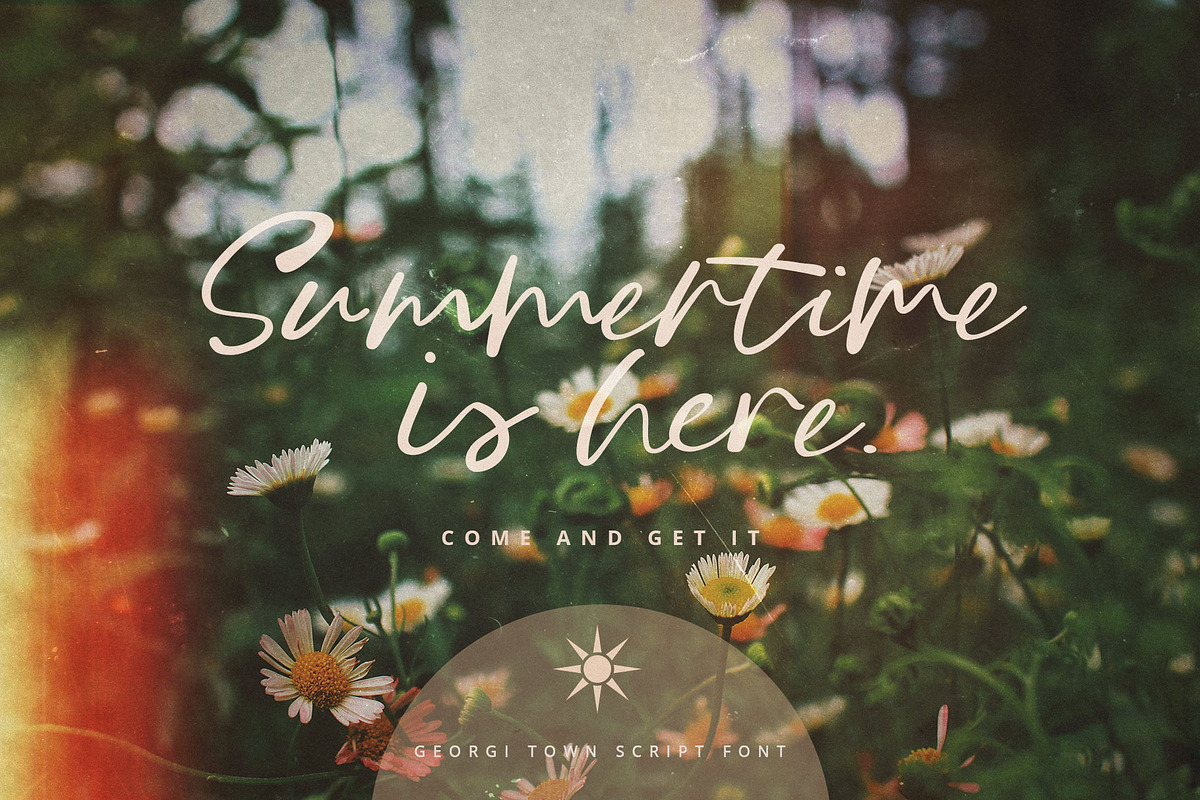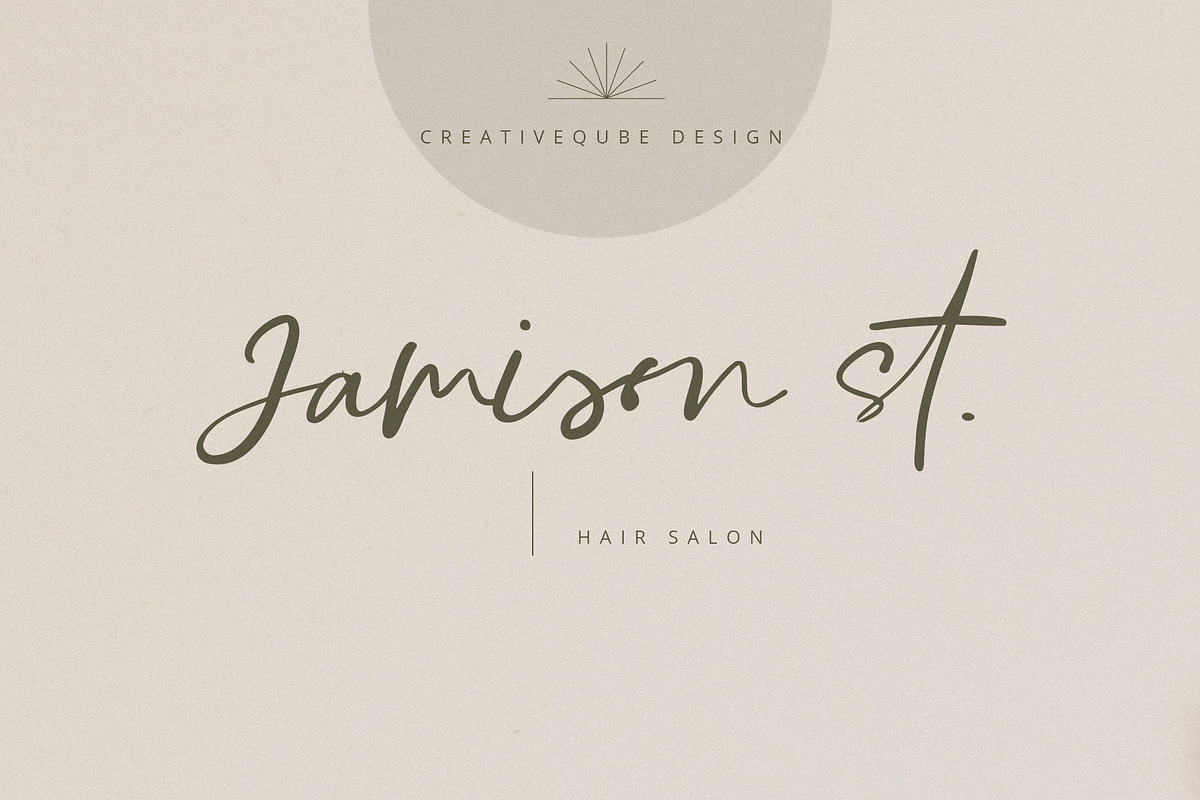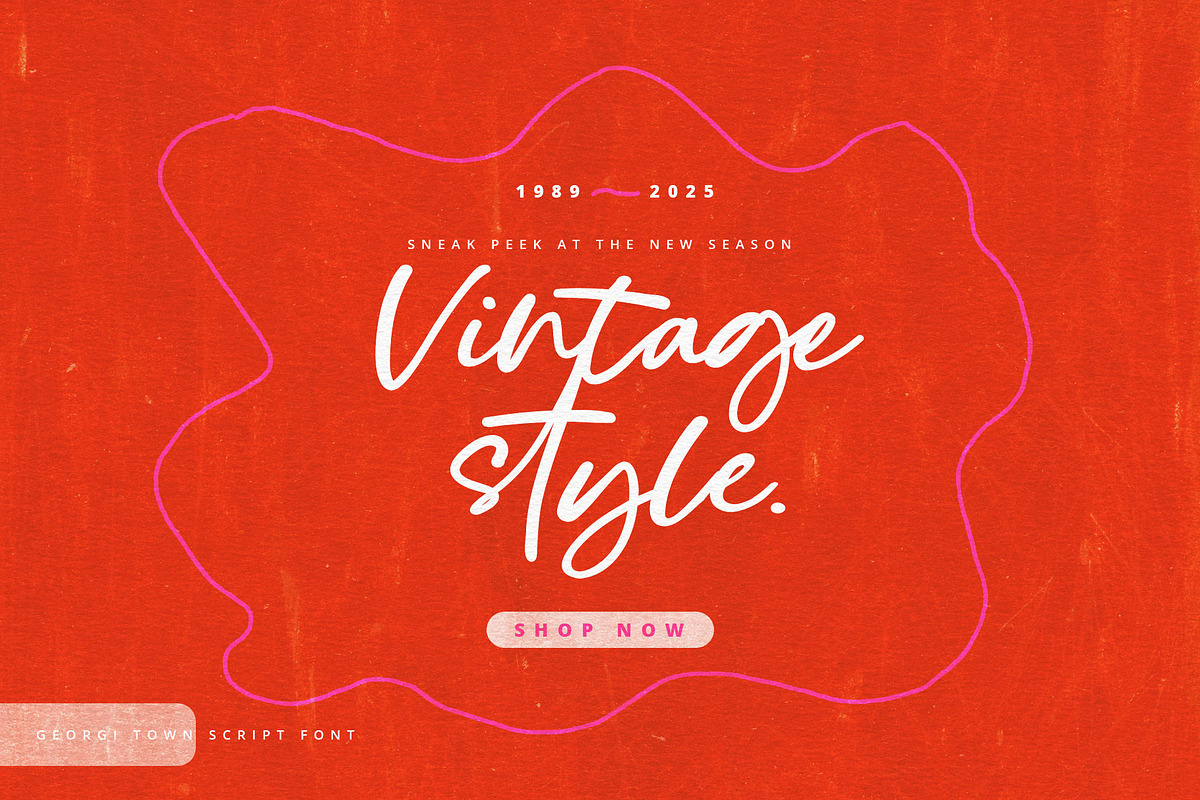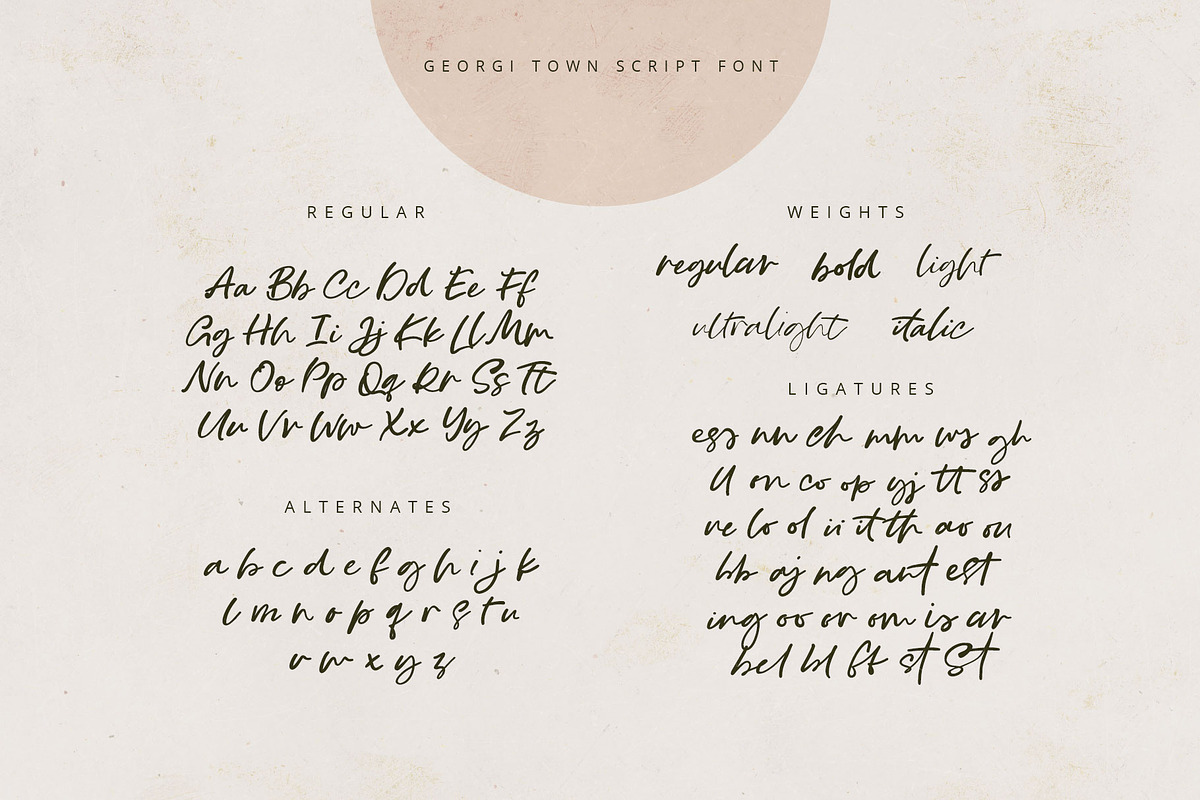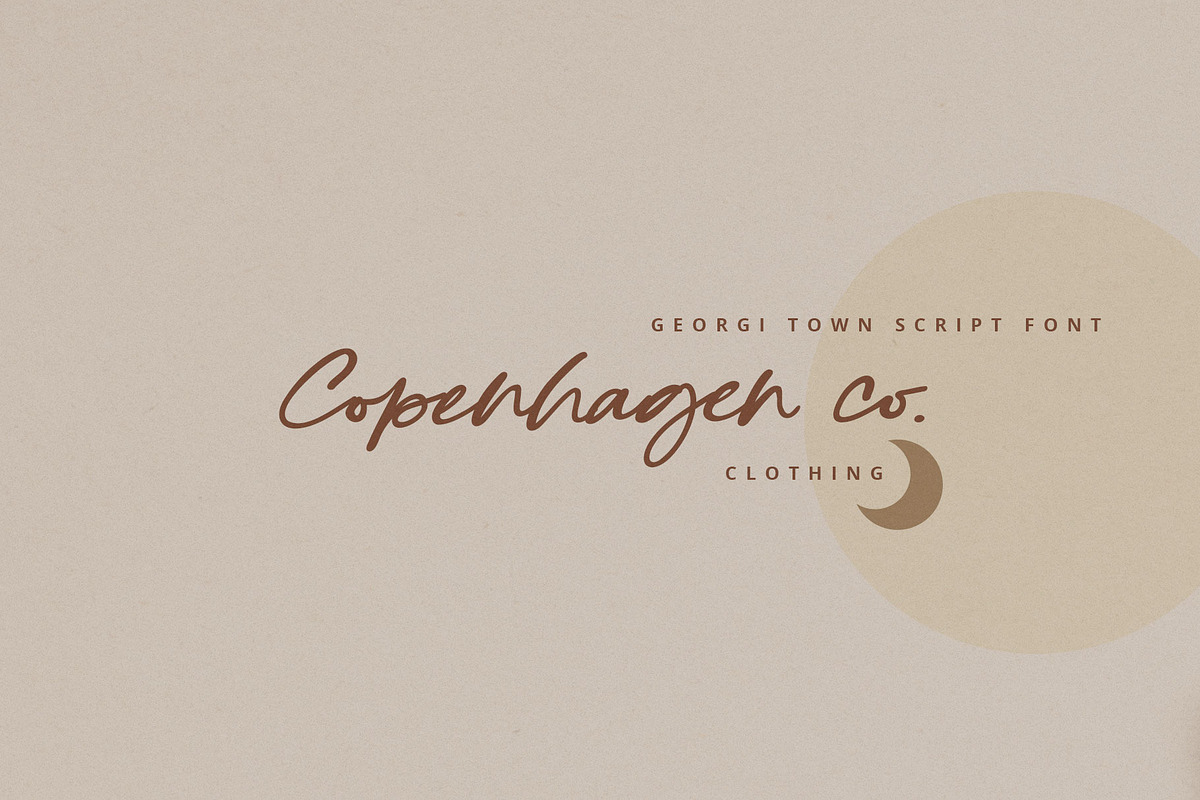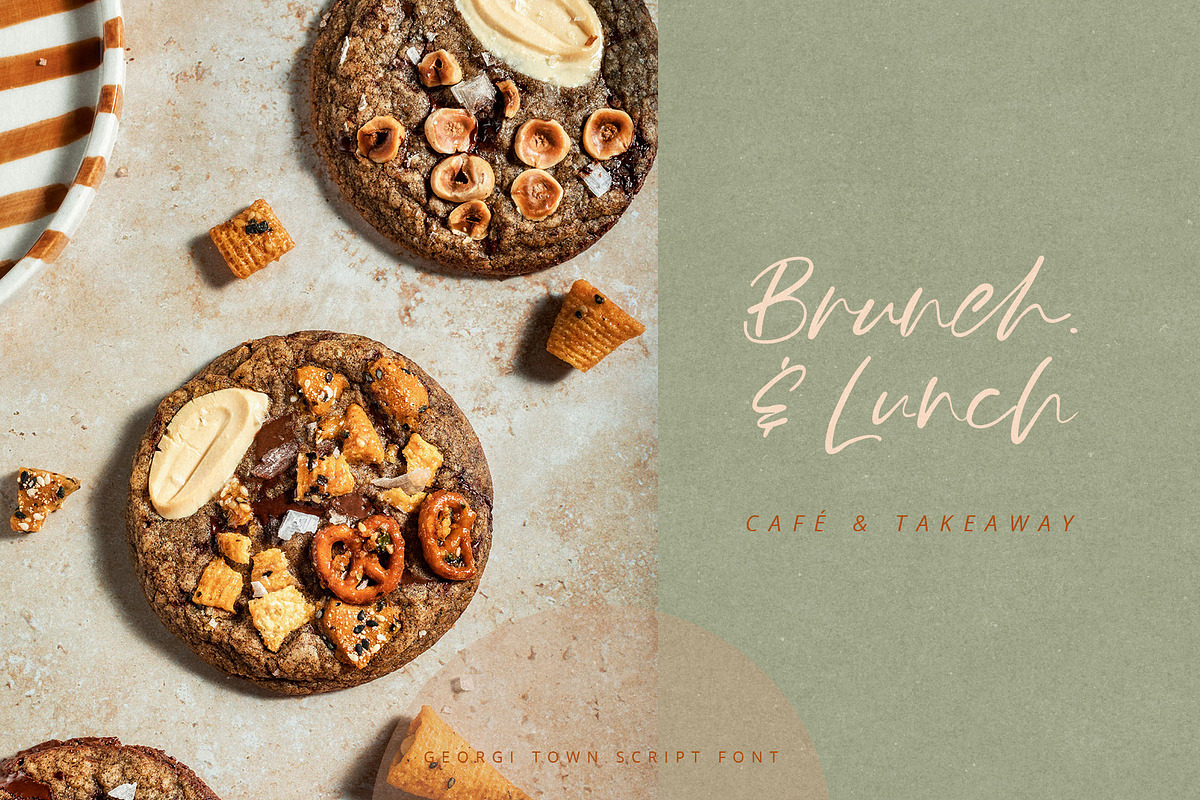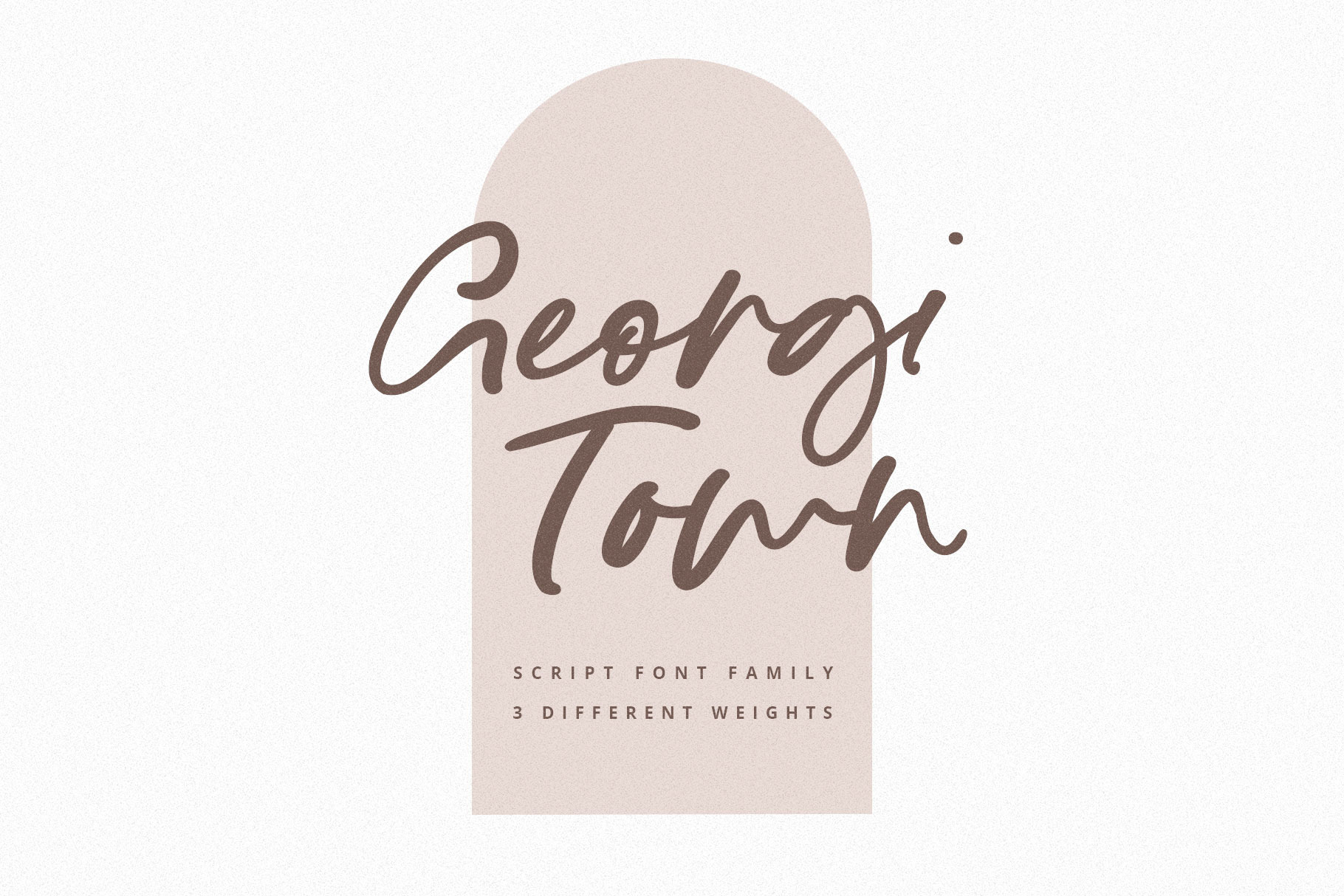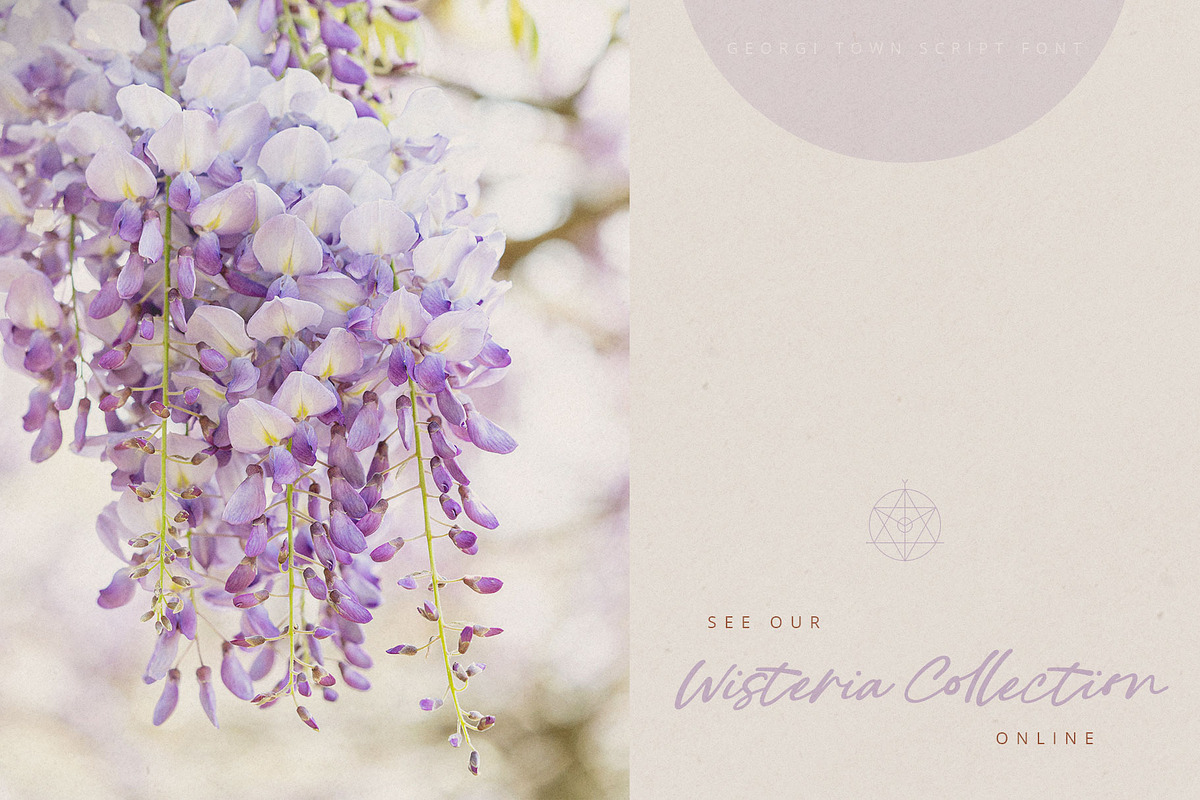
Georgi Town Script Font Family
Georgi Town – Handwritten Modern calligraphy script Font for Your Creative Projects
Add a touch of personality and charm to your designs with Georgi Town, the perfect handwritten font, including 4 different weights. Whether you're creating invitations, social media posts, logos, or merchandise, this font will give your work a fresh, modern feel.
Georgi Town blends playful curves and stylish lines, making it versatile for everything from casual to professional designs. Its unique handwritten look is perfect for giving your projects that custom, personal touch.
Uppercase & lowercase letters
Alternates & Ligatures
Bold, light, ultra-light and italic versions.
Why You'll Love Georgi Town:
Playful & Trendy: A modern, handwritten style that’s perfect for adding fun to your designs.
Versatile: Ideal for invitations, branding, websites, merchandise, and more!